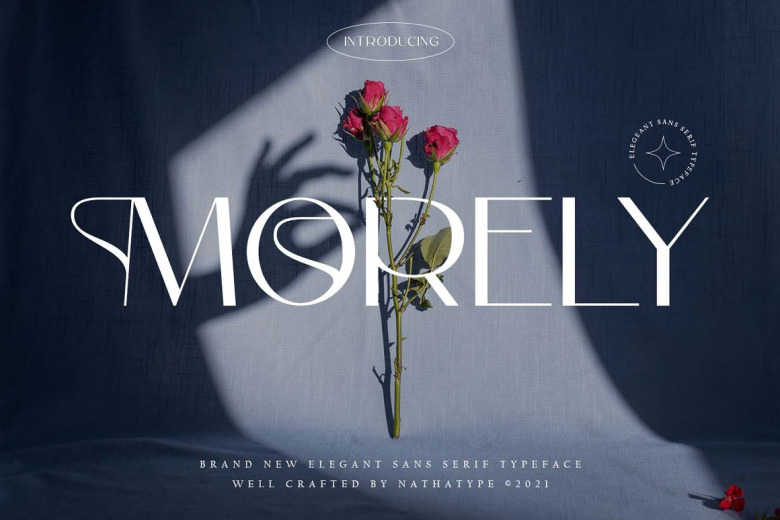
Morely Font
Morely Sans Font is one of the most elegant, exquisite yet strong font design with modern vibe. This is a timeless font, will never go wrong for your audience, clients, guests or anyone around you. A real head-turner for your presentation, designs, website illustrations, and much more.
Morely Sans Serif Typeface